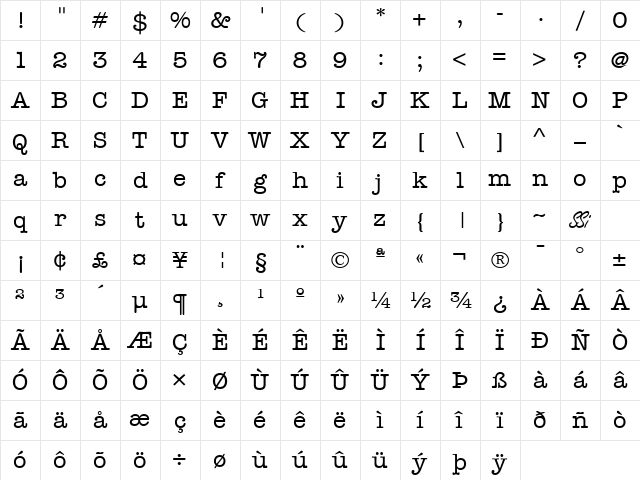
Keyboard SSi Medium
Design Context for Keyboard SSi
Keyboard SSi is a composed and adaptable typeface that performs quietly and consistently across a wide range of design contexts.
Pro Tip: Use Keyboard SSi in both headline and body roles to test its range before committing to a single application.